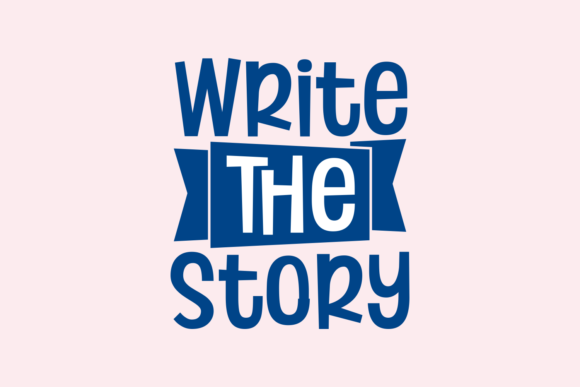
Journey into the realm of tales untold, where words dance and stories unfold. Write the Story, a captivating display font, awaits your creative touch to weave enchanting narratives.
This font, crafted by the artisans of Creative Fabrica Fonts, is a masterpiece designed to ignite the imagination. Its tall characters stand like sentinels, ready to guard your tales of adventure, romance, or mystery. With Write the Story, your words become the threads that weave captivating tapestries of expression.
Picture your designs adorned with Write the Story's elegant strokes, each letter a brushstroke of artistry. Create art prints that transport viewers to distant lands, covers that beckon readers into hidden worlds, and posters that announce events with a flair of the extraordinary.
Fashion takes on a new dimension as Write the Story graces t-shirts, imbuing them with a sense of adventure. Quotes find a new canvas, their messages amplified by the font's bold presence. Logos and wall art radiate with a timeless charm, their stories etched in the curves and lines of each letter.
Write the Story is the font that transforms the ordinary into the extraordinary. It's the perfect companion for creative projects that demand attention, projects that seek to capture hearts and minds.
So, embrace the allure of Write the Story and embark on a creative journey like no other. Let your imagination run wild, let your stories flow, and let this stunning display font elevate your designs to new heights of brilliance.